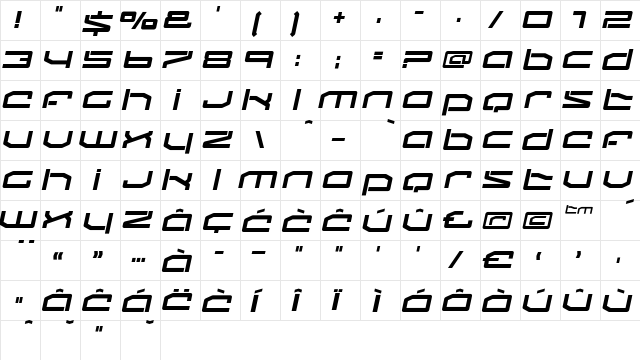
Fluster Regular
| Foundry | design: onezero |
| Designer | onezero |
Fluster is a composed and adaptable typeface that performs quietly and consistently across a wide range of design contexts.